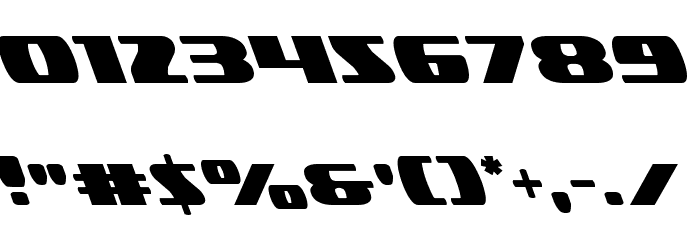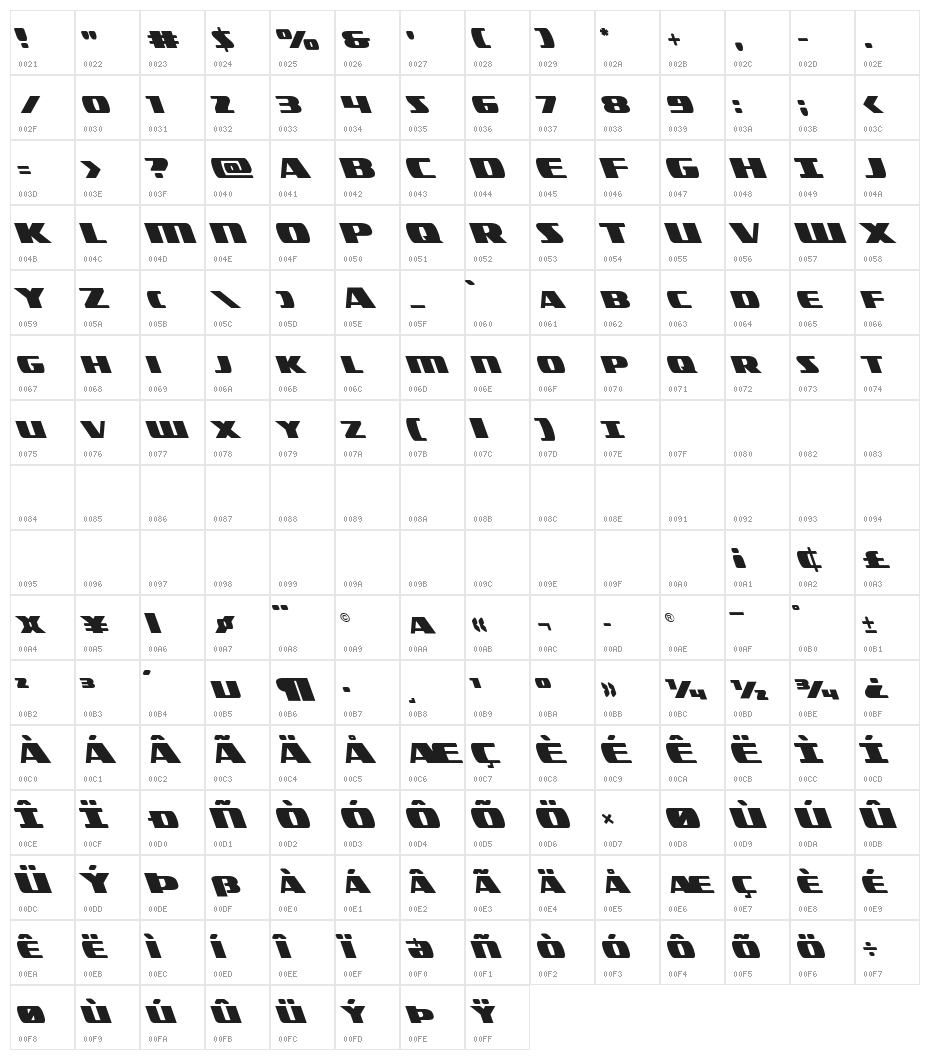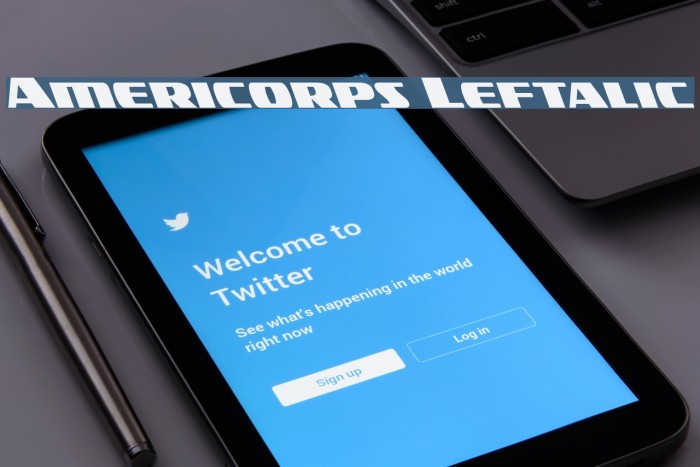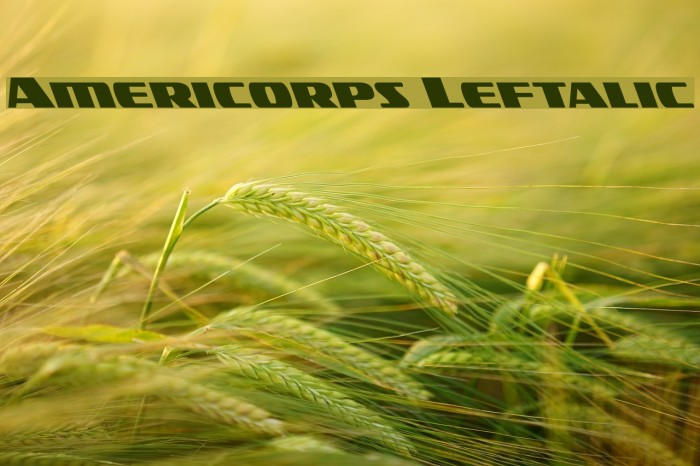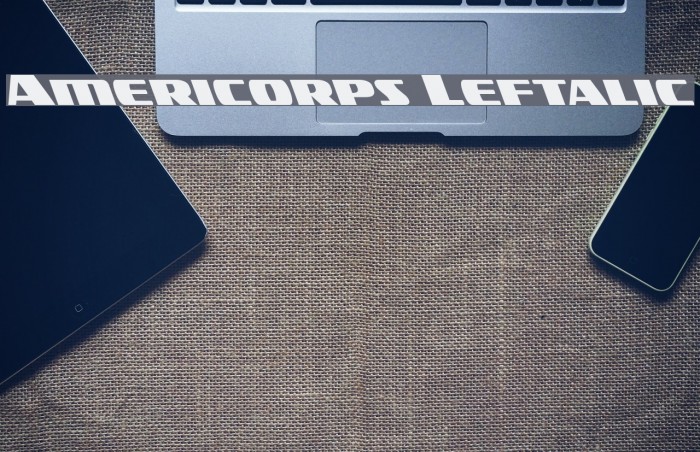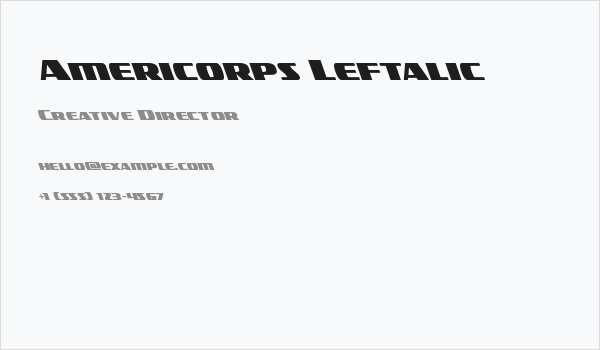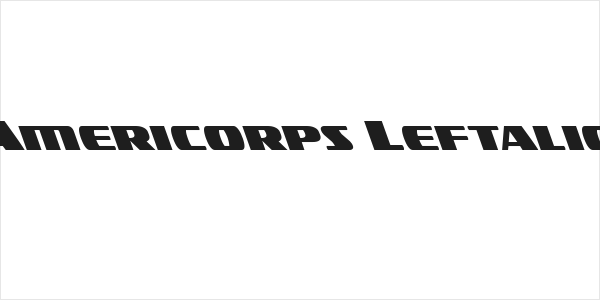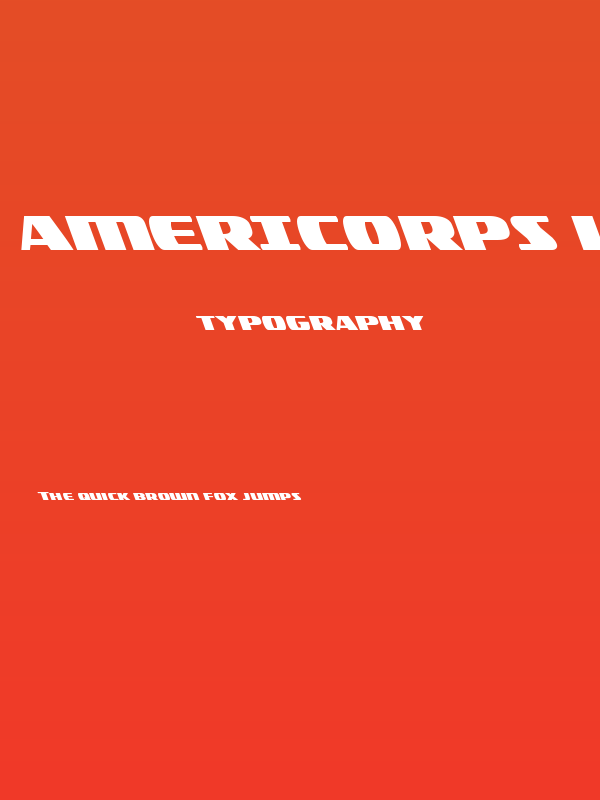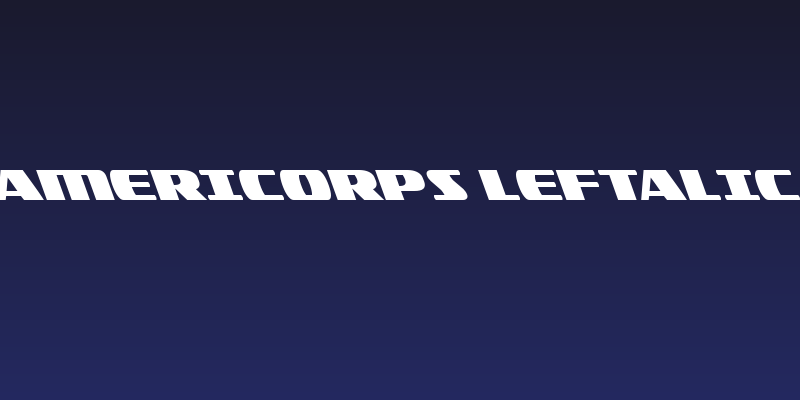
Americorps Leftalic Font
Americorps Leftalic Description
This font features a bold and dynamic design with a distinct slant to the left, giving it a sense of motion and energy. The characters are wide and blocky, with sharp angles and a futuristic feel. The uppercase and lowercase letters maintain a consistent style, with the uppercase being slightly more pronounced. Numbers and special characters follow the same bold and angular design, ensuring uniformity across all text elements. The font's unique style makes it stand out, ideal for projects that require a modern and impactful look.
| Proposed Projects | Ideal for sports branding, tech logos, video game titles, and dynamic posters. |